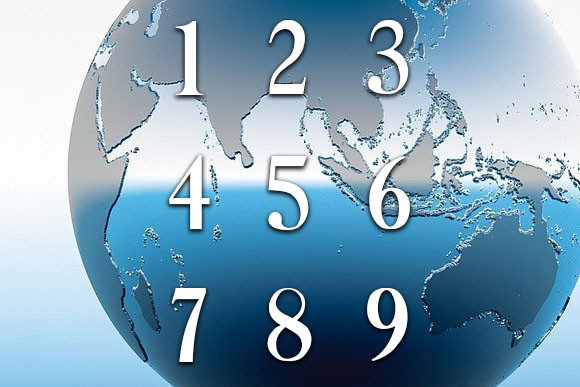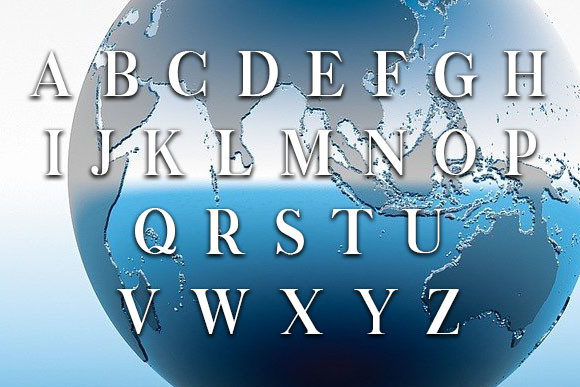
The Moment You’ve Been Waiting For: Introducing Breaking News Font
Have you ever sat in front of your computer, staring at a blank canvas, waiting for inspiration to strike? That’s where the magic happens – in the moment when a great idea clicks, and your design takes shape. For designers, these moments are what make all the hard work worth it.
Breaking News Font is here to help you seize those moments and take your designs to the next level. This assertive and awesome serif font is designed to make a statement, and with its versatility, it’s sure to look cool on any of your design ideas. Add it confidently to your favorite creations and get ready to be amazed by the outcome generated.
Whether you’re a seasoned pro or just starting out, Breaking News Font is a valuable addition to your toolkit. Its unique style and flair will give your designs a boost of personality and help you stand out from the crowd.
Breaking News Font Key Features
- Font Family: Breaking News Font is a custom-designed font, which is not a standard font family. It is a unique, hand-crafted typeface specifically designed for news and media applications.
- Font Size and Resolution: The font is designed to be highly legible at various font sizes, from 8 to 24 points, and resolutions up to 300 DPI. This makes it suitable for both digital and print media.
- Unique Characteristics: Breaking News Font features a clean, modern design with a clear and concise typography. It is optimized for fast reading and comprehension, making it an ideal choice for news headlines, titles, and body text.
Breaking News Font Review
I recently had the chance to work with the “Breaking News Font” and I must say, it’s a mixed bag. ✨ There are definitely some things that work well, but there are also some limitations that might make it less suitable for certain projects.
- ✨ The font is highly legible, even at small sizes. It’s perfect for headlines and titles where you want to grab the reader’s attention.
- ✨ The font has a modern and sleek feel to it, making it suitable for contemporary designs and websites.
Limitsations:
- ⚠️ The font can feel a bit too bold and overwhelming at times, especially when used extensively throughout a design.
- ⚠️ The font lacks the nuance and sophistication of more traditional serif fonts, which might make it less suitable for certain types of projects.
Overall, the “Breaking News Font” is a solid option for projects where you need a bold and attention-grabbing headline font. However, it’s not a one-size-fits-all solution and may not be the best choice for every project. With some careful consideration and experimentation, it can be a great addition to your design toolkit.
Use the Breaking News Font to create attention-grabbing headlines, titles, and subheadings.
Combine the font with bold colors and graphics to create a dynamic and engaging design.
Use the font to create a sense of urgency or importance, perfect for news articles, press releases, and other time-sensitive content.
Breaking News Font is ideal for:
News articles and press releases